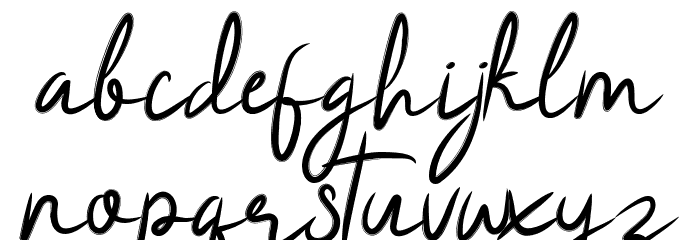
Qailla Gloam Demo Font
This font features a dynamic and flowing script style, characterized by its elegant and fluid strokes. The letters are interconnected, creating a sense of continuity and movement. The uppercase letters are bold and prominent, while the lowercase letters maintain a consistent flow with slightly varied heights. The overall appearance is both artistic and sophisticated, making it suitable for creative and expressive designs. The font's handwritten quality adds a personal touch, making it ideal for projects that require a human element. The strokes vary in thickness, providing a medium contrast that enhances readability while maintaining a stylish appearance.
A dynamic and flowing script font with elegant, interconnected strokes.
- Proposed Projects: Ideal for wedding invitations, greeting cards, logos, and branding materials that require a personal and artistic touch.